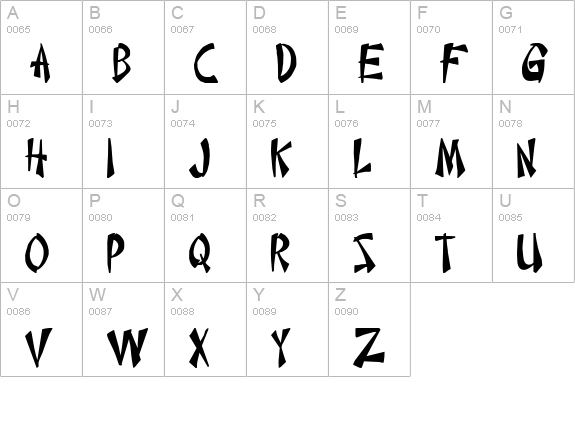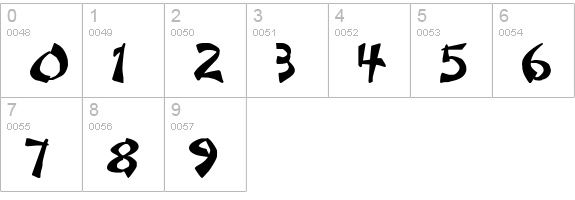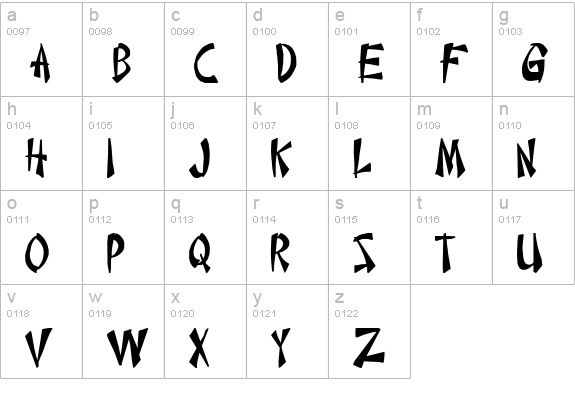
Chinese Takeaway Font Details
Chinese Takeaway font is a stunning typeface that embodies the essence of traditional Chinese calligraphy with a modern twist. Its elegant strokes and intricate details make it perfect for adding a touch of sophistication to your design projects. This font features a wide range of characters, including Chinese characters and English letters, allowing for versatile and creative typography. What sets Chinese Takeaway font apart is not only its unique design but also the fact that it is available for free download at FontsMarket.com. Whether you're working on a branding project, poster design, or any other creative endeavor, this font will surely make a statement and elevate your work to the next level. Embrace the beauty and cultural richness of Chinese calligraphy with the freely available Chinese Takeaway font.